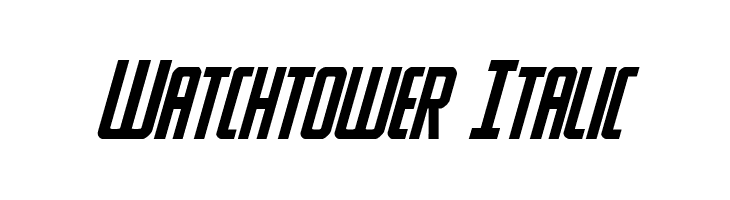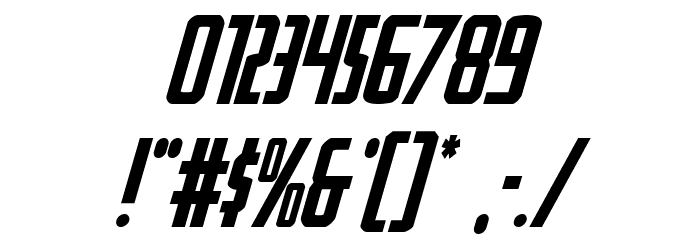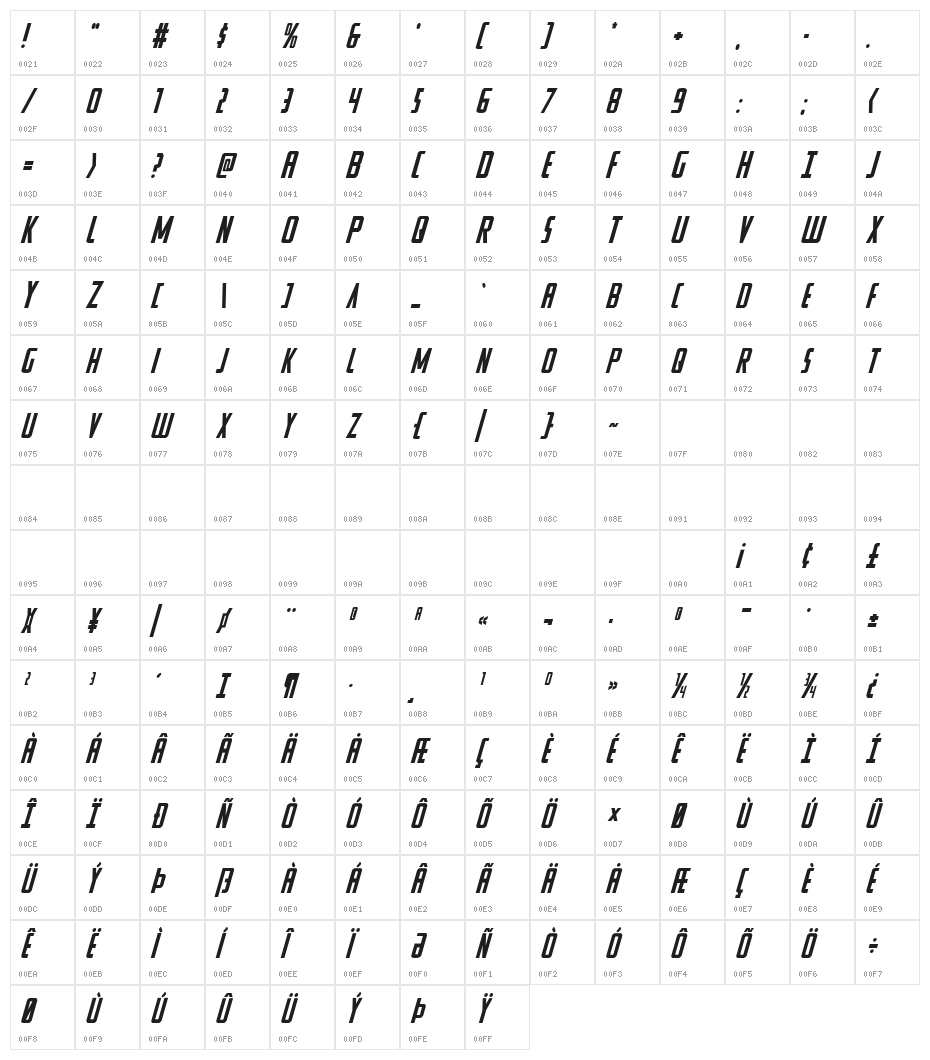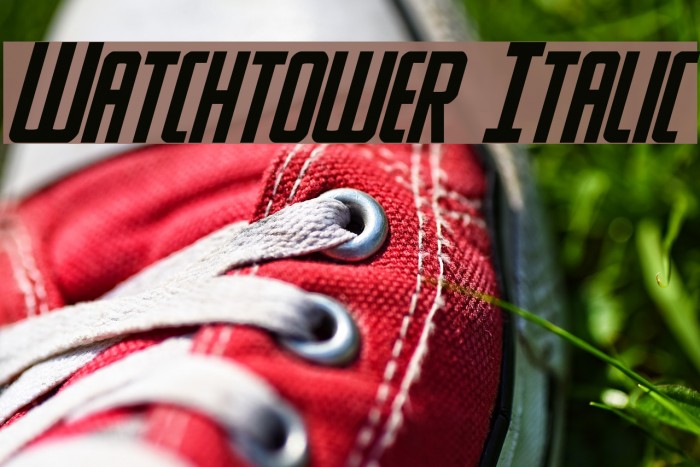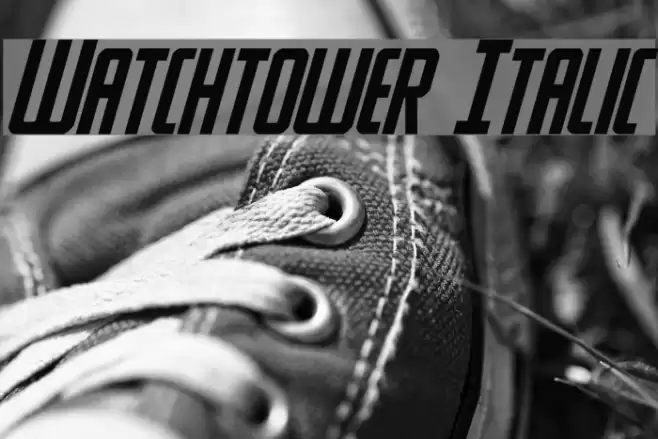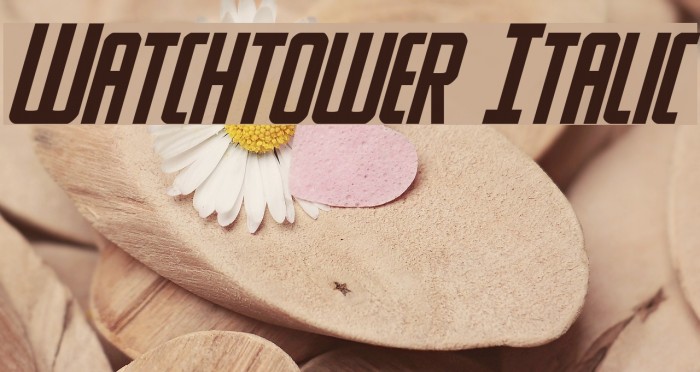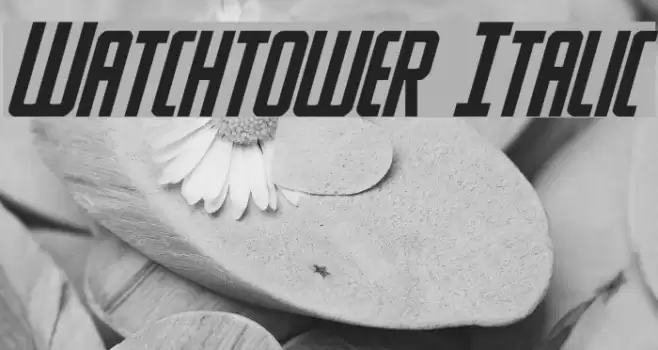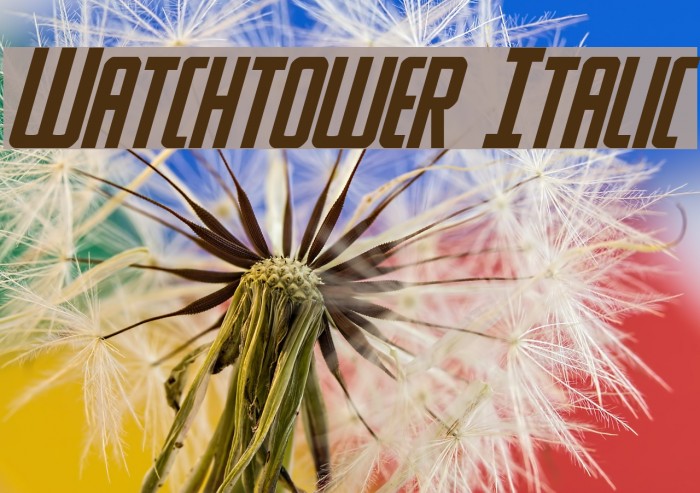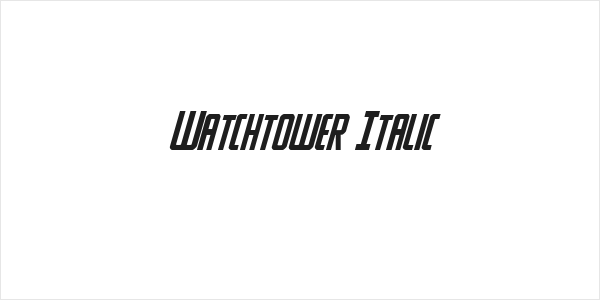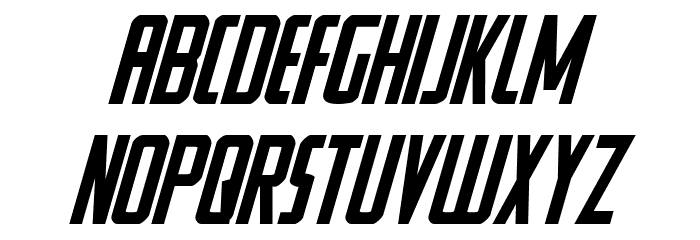
Watchtower Italic Font
Watchtower Italic Description
This font features a bold, italicized style with a strong, dynamic presence. The characters are sharply angled, giving a sense of motion and urgency. The strokes are thick and consistent, with a slight slant that enhances its italic nature. The uppercase and lowercase letters maintain a uniform height, contributing to a cohesive look. The numerals and special characters are designed to match the boldness of the letters, ensuring a harmonious appearance across all text. This font is ideal for making a statement, with its eye-catching design and modern appeal.
| Proposed Projects | Ideal for sports branding, dynamic posters, and modern advertising campaigns. |